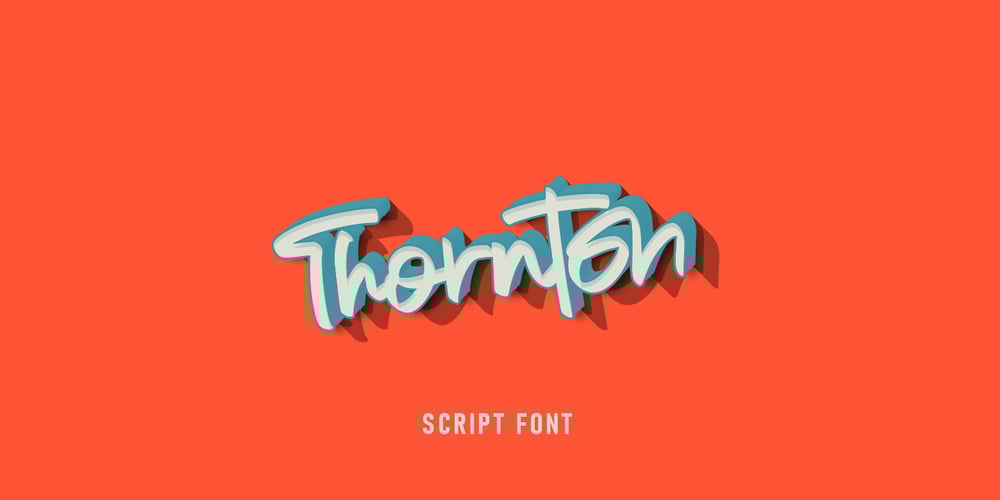
Thornton
Thornton font
Thornton Font Family was designed by Asep Rendi and published by Arendxstudio. Thornton contains 1 styles and family package options. Thornton is a bold script that looks elegant when used for your design. It’s also elegant and modern and works well with your design interests, be it for logos, branding names, posters, podcasts and so on. Features 1.Uppercase & Lowercase 2.Numbers & Punctuation 3.Multilingual Support 4.Ligatures